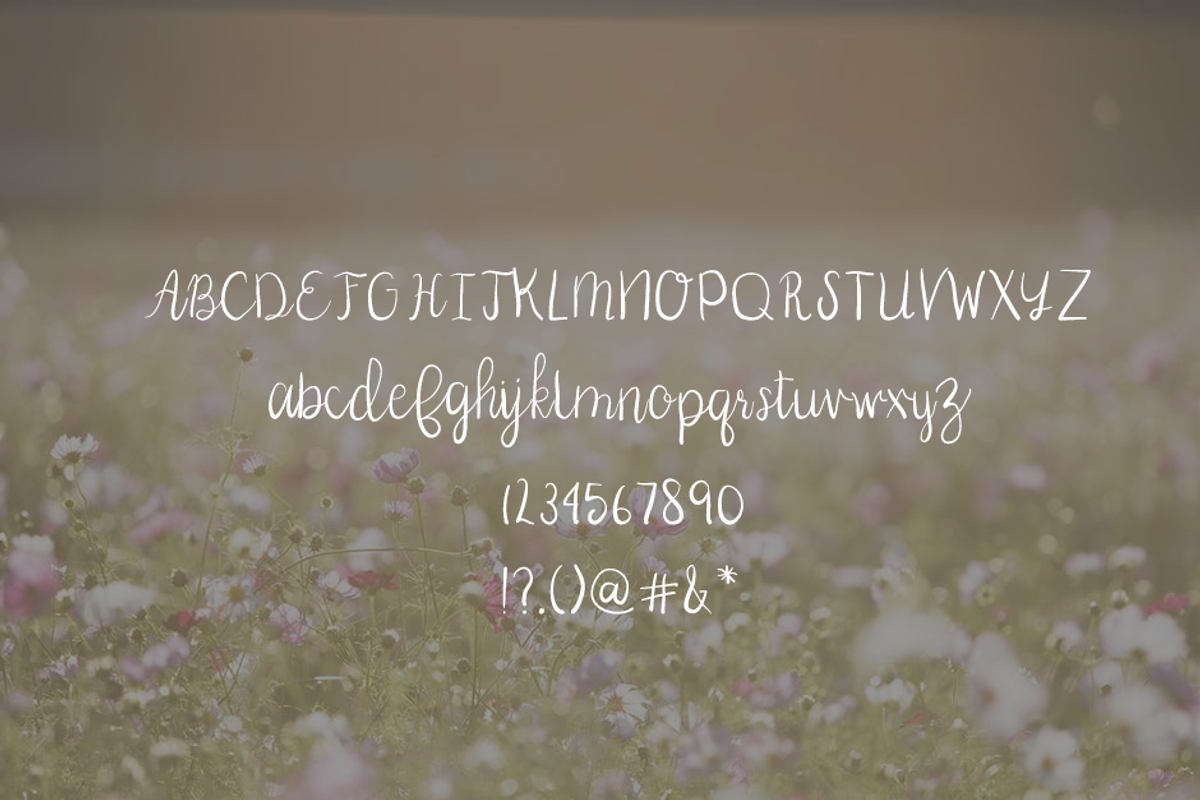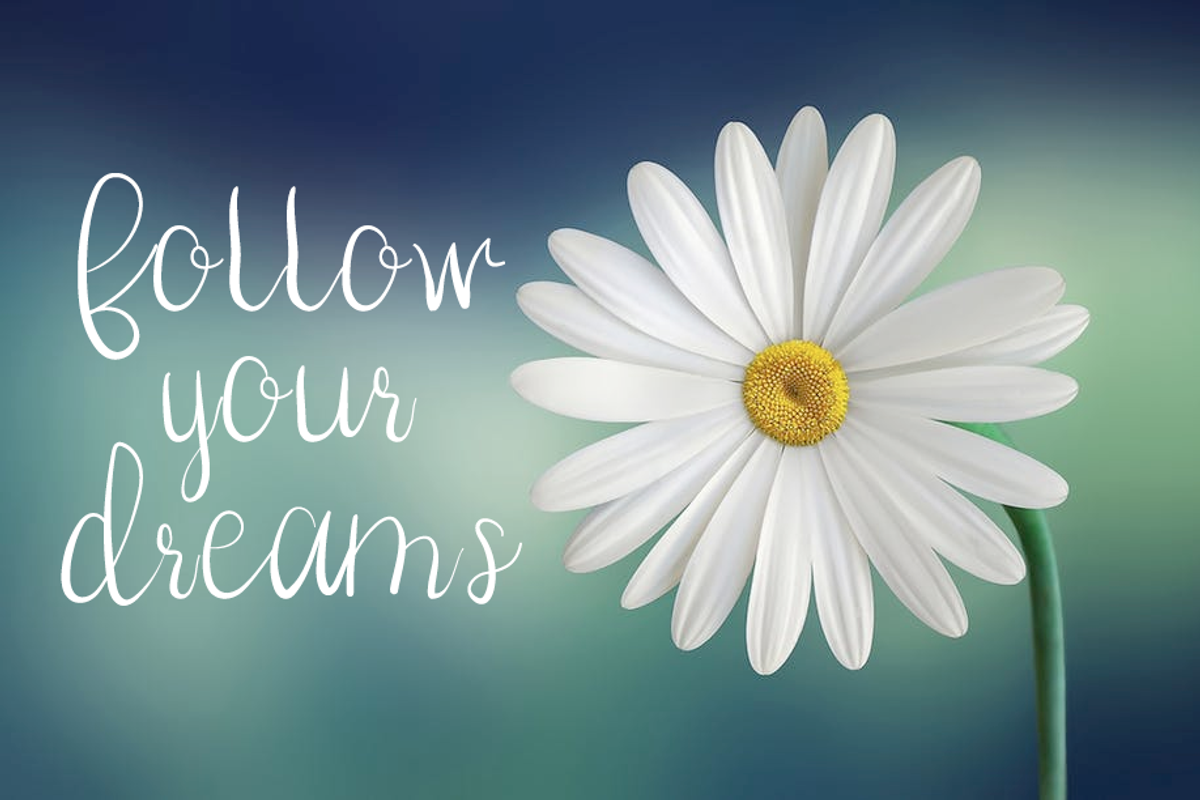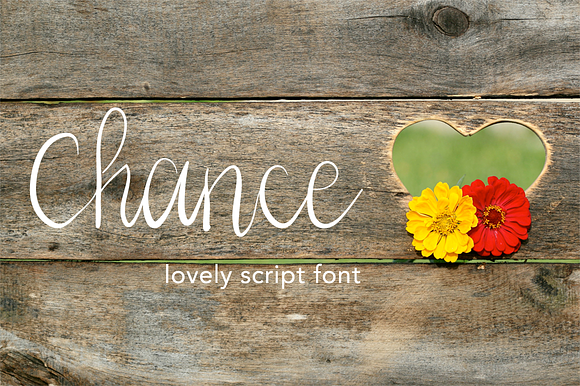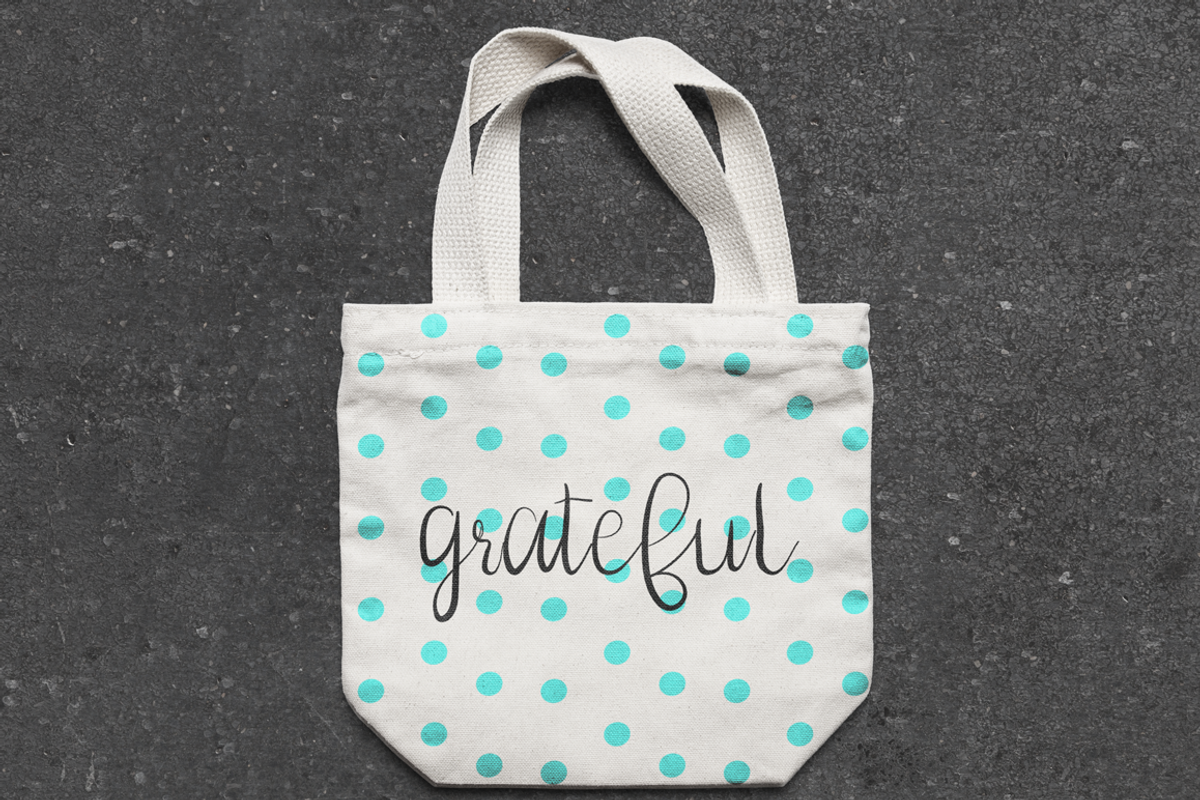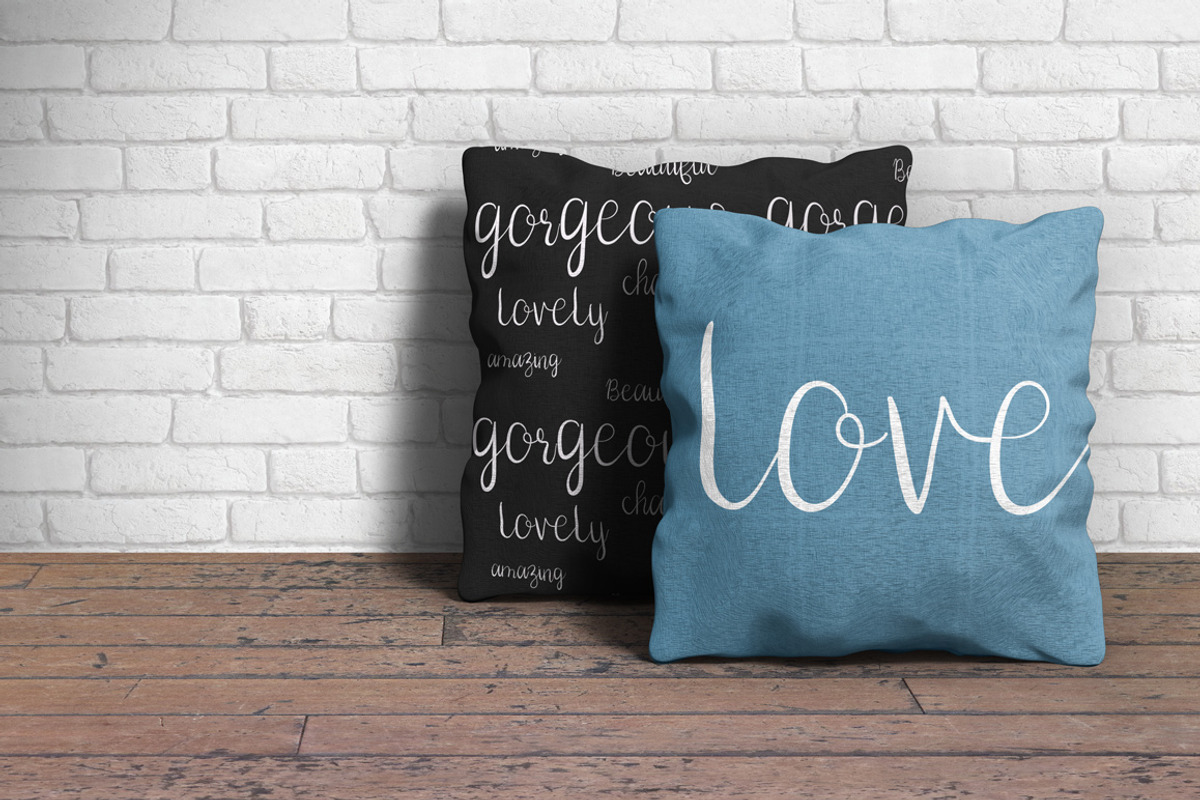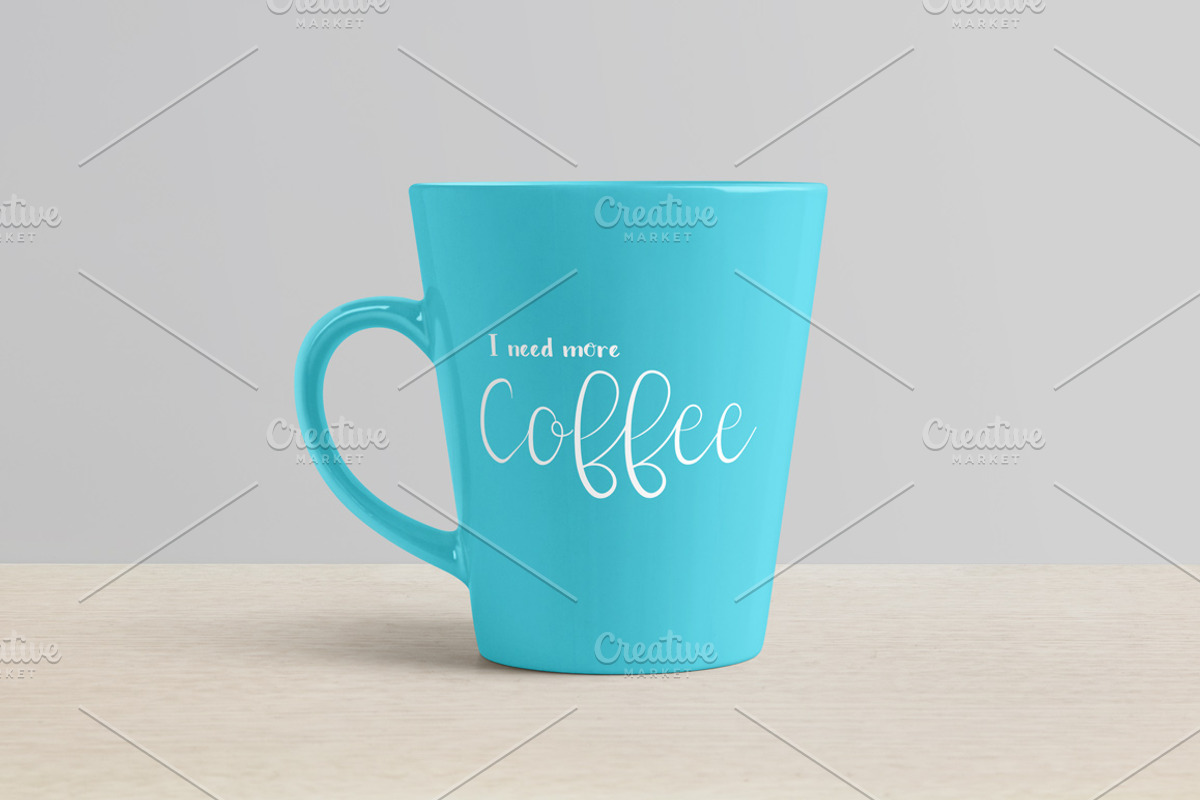
Chance Font
Chance is a fun, feminine script font. This trendy, handwritten font looks great in social media images, and merchandise - including pillows, bags, and t-shirts. Chance also looks great for inspirational messages.
Included: Upper and lower case letters, numbers, punctuation, and multilingual support.
Language Support for the following: English, Spanish, Portuguese, Italian, Dutch, Danish, Finnish, Norwegian, Swedish, German, and French.
This font created in memory of a horse named Chance - I wanted to capture the freedom and fun of a teenage girl riding a horse in an open field.